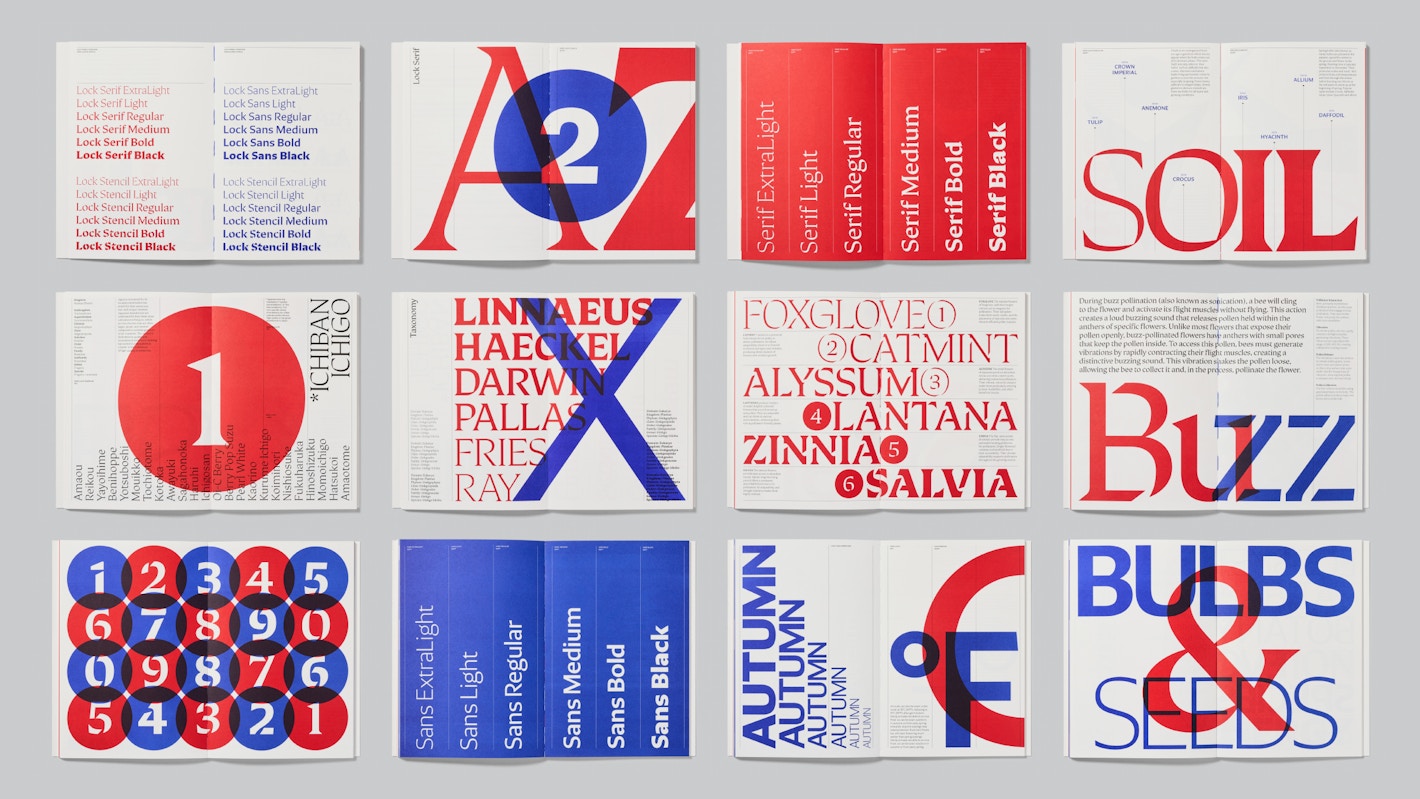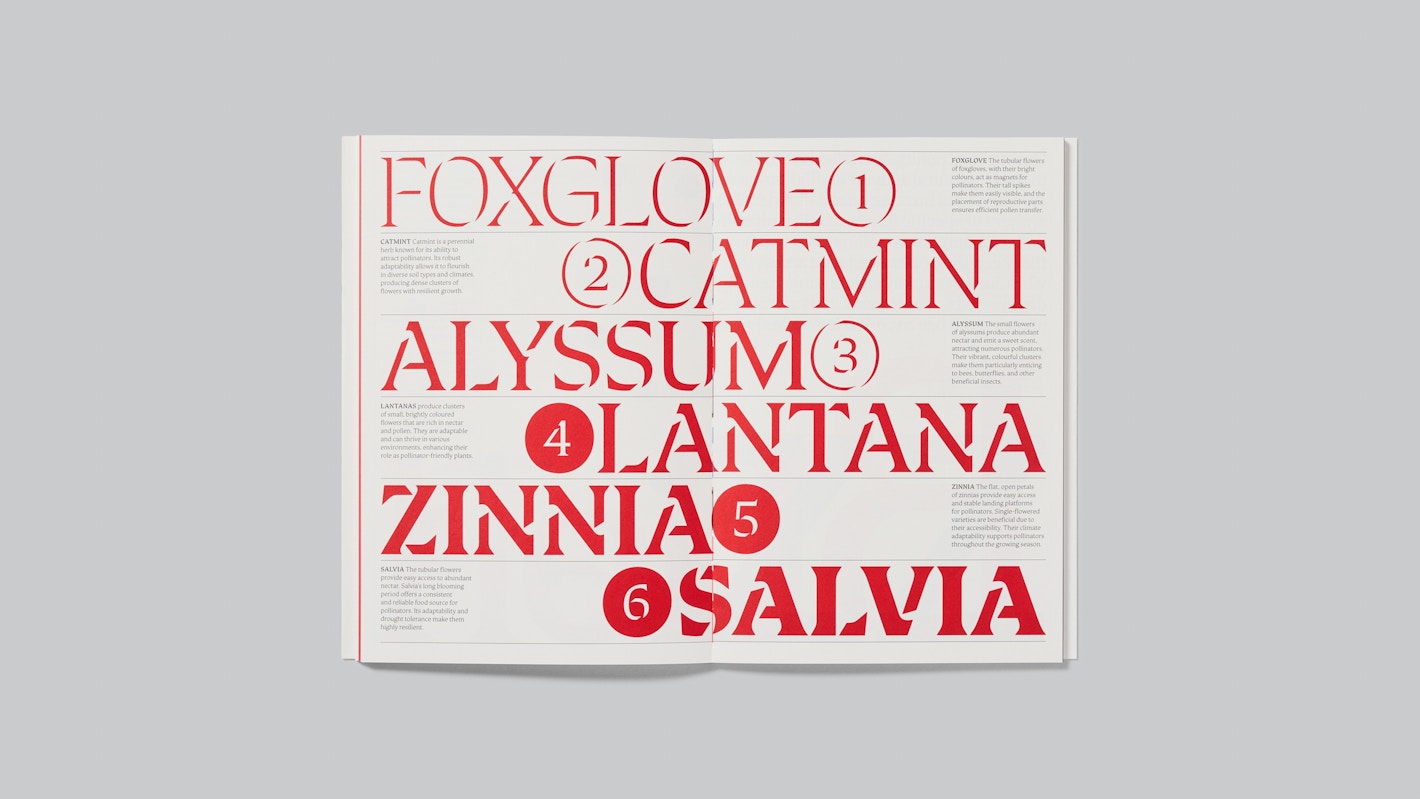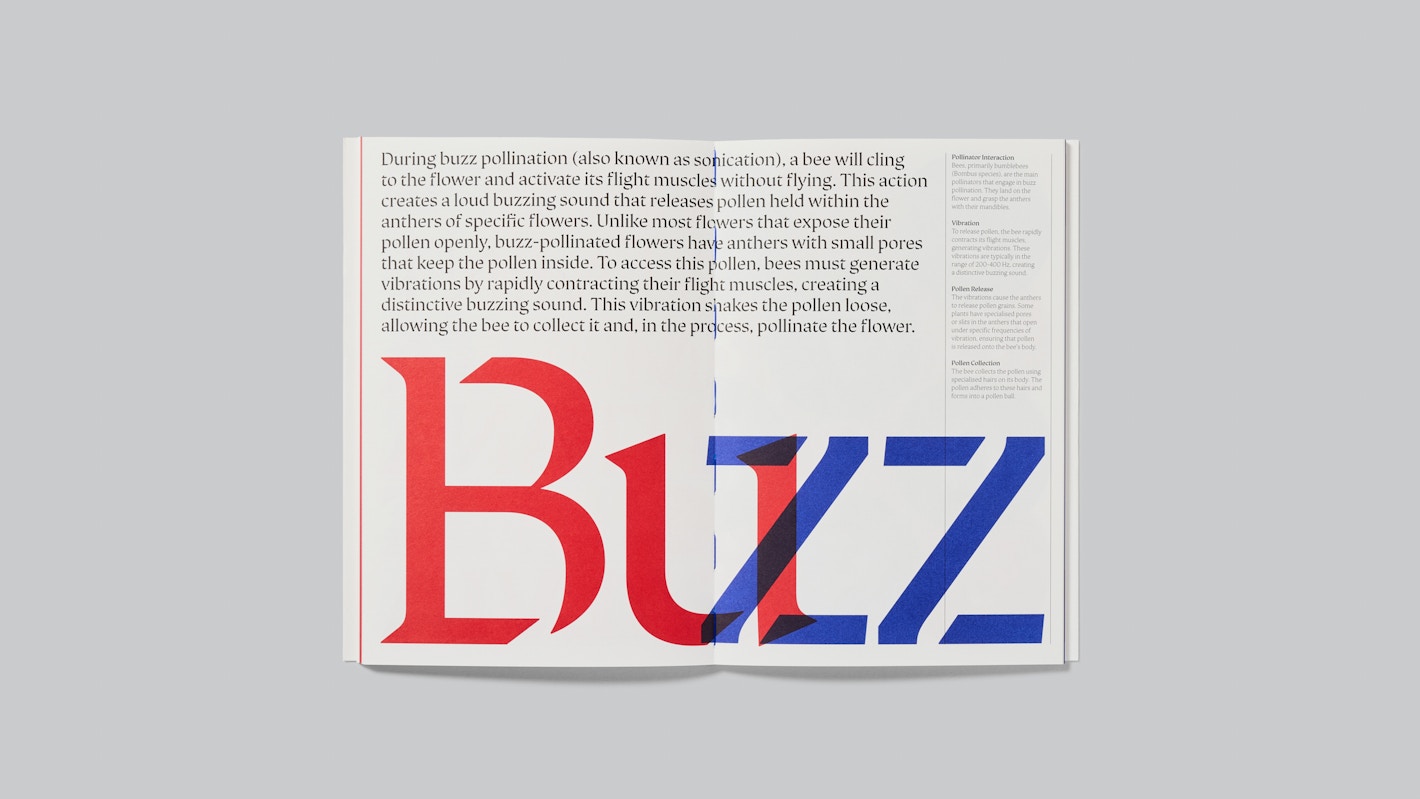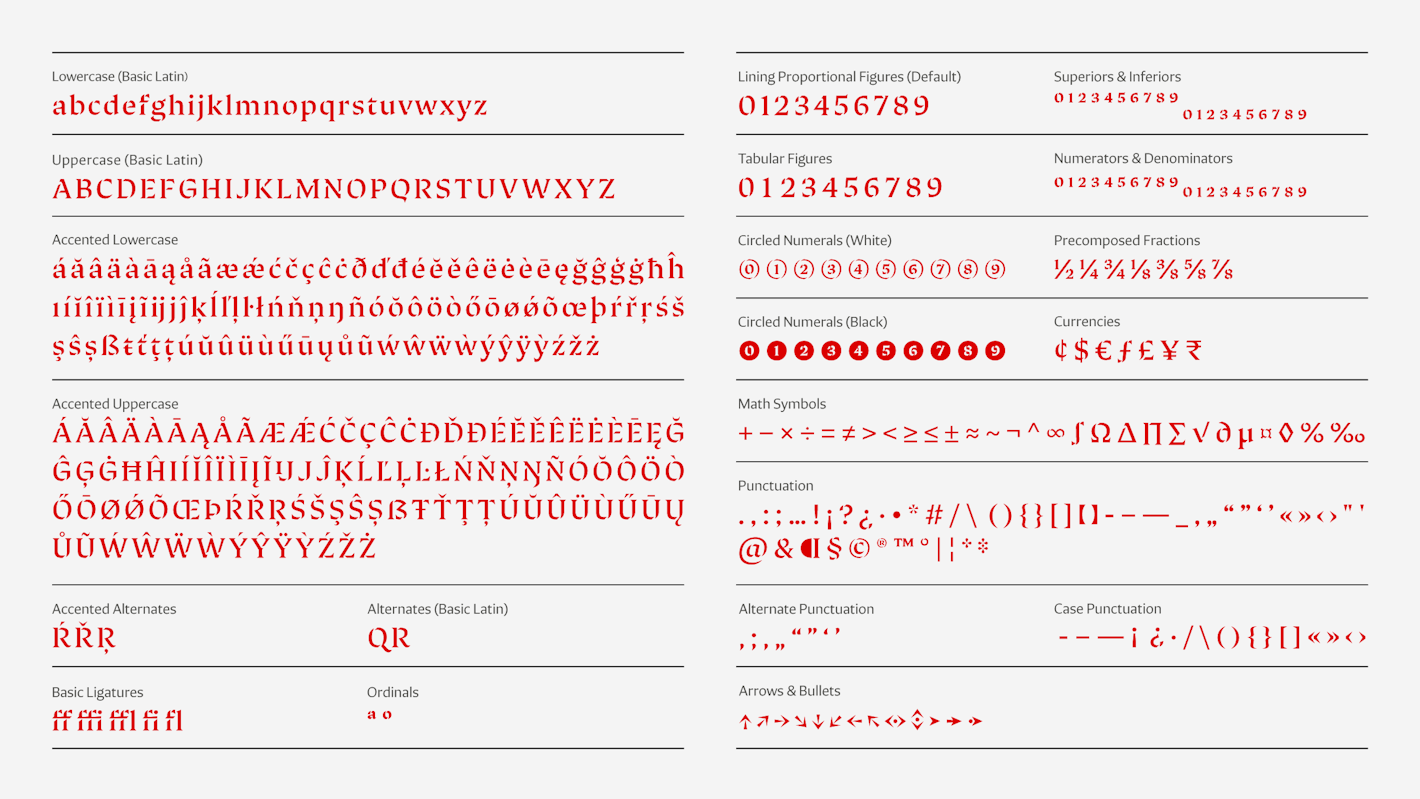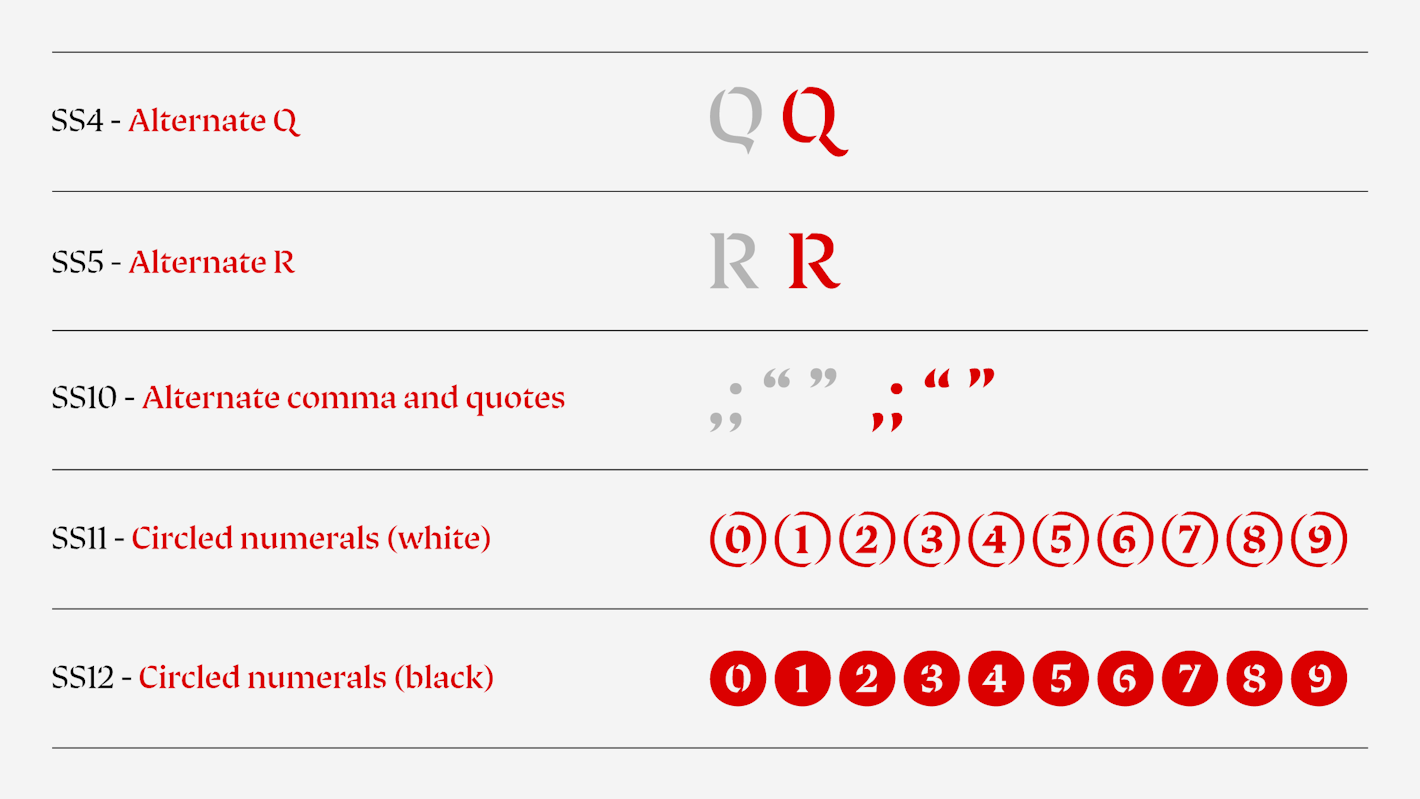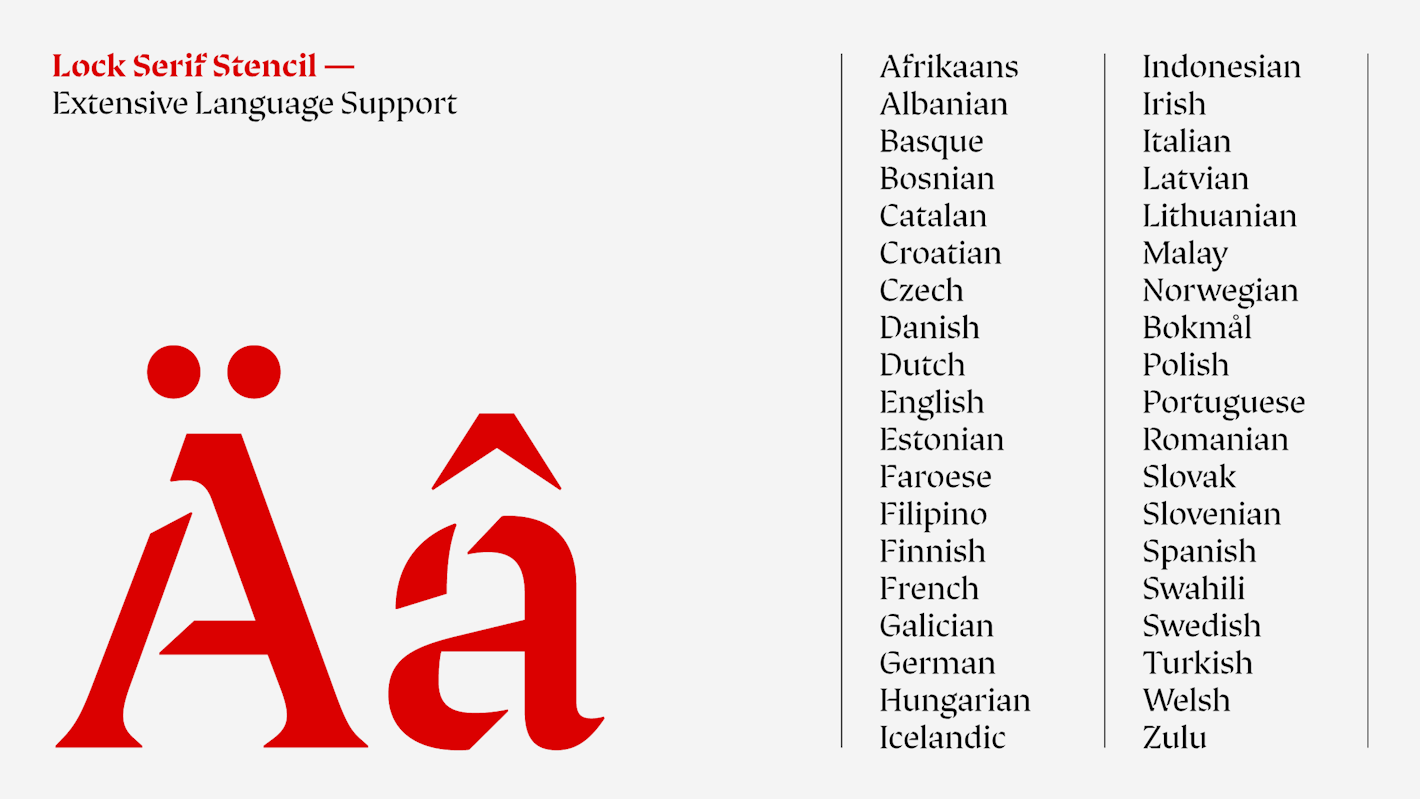
Lock Serif Stencil introduces playful stencil cutouts to the assertive shapes of Lock Serif, merging the sharp elegance of a serif with industrial, experimental flair. This creative twist is perfect for designers looking to make a bold statement.
Available in six weights from ExtraLight to Black, Lock Serif Stencil includes glyph alternates for characters like ‘Q’ and ‘R,’ along with arrows, circled numbers, as well as alternate comma and quotes. The stencil cuts create visual interest without disrupting the overall elegance of the serif design, offering a balance of creativity and structure. The character set covers most Latin-based languages. Lock Serif Stencil can be used interchangeably with Lock Serif, with no impact on text flow.
Lock Serif Stencil brings together classical elegance with modern industrialism, making it an ideal choice for titles, posters, and other creative layouts where a unique and striking typeface is required.
Lock Serif Stencil is part of the larger Lock collection – designed by Mark Bloom and Diana Ovezea. The family explores the intersection of broad-nib calligraphy and industrial design, offering both Sans and Serif variants with matching stencil counterparts.